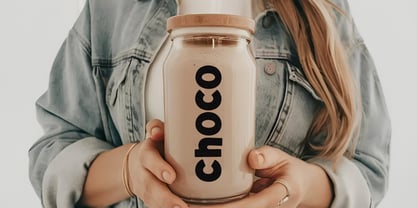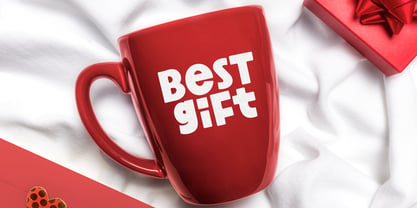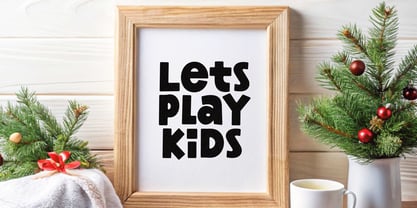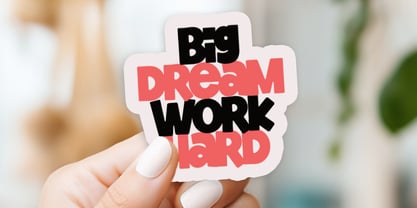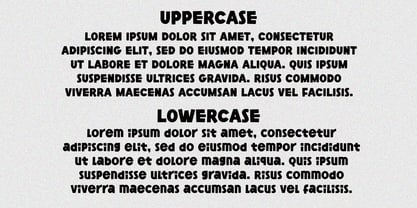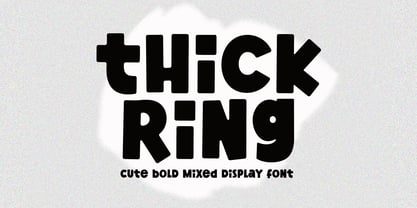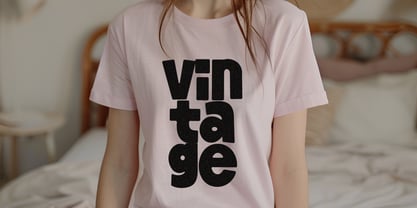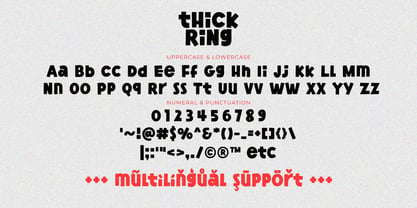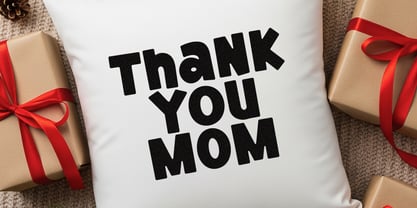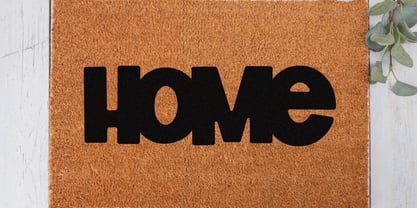
Thick Ring
Die Schriftfamilie Thick Ring wurde von Ainur Rofiq entworfen und von Airotype veröffentlicht. Thick Ring enthält 1 Stile. Mehr über diese Familie
Thick Ring is cute and bold display font. This font is created with chunky stroke and bouncy style to give happy and cheer vibes. It can be mixed among uppercase and lowercase, to make the design more quirky and festive.
Thick Ring is pretty font for wide ranges of design with cute theme, such as t-shirt, display, crafting, sticker, quotes, tumbler, sublimation, and many more.